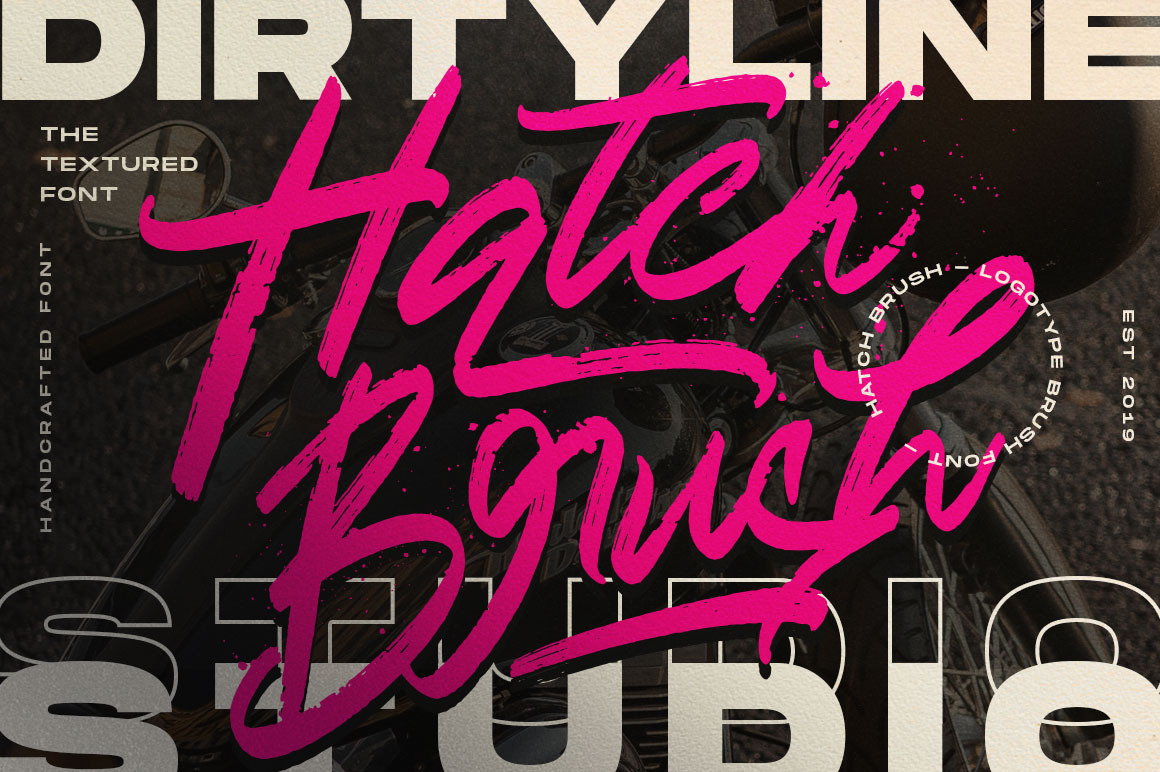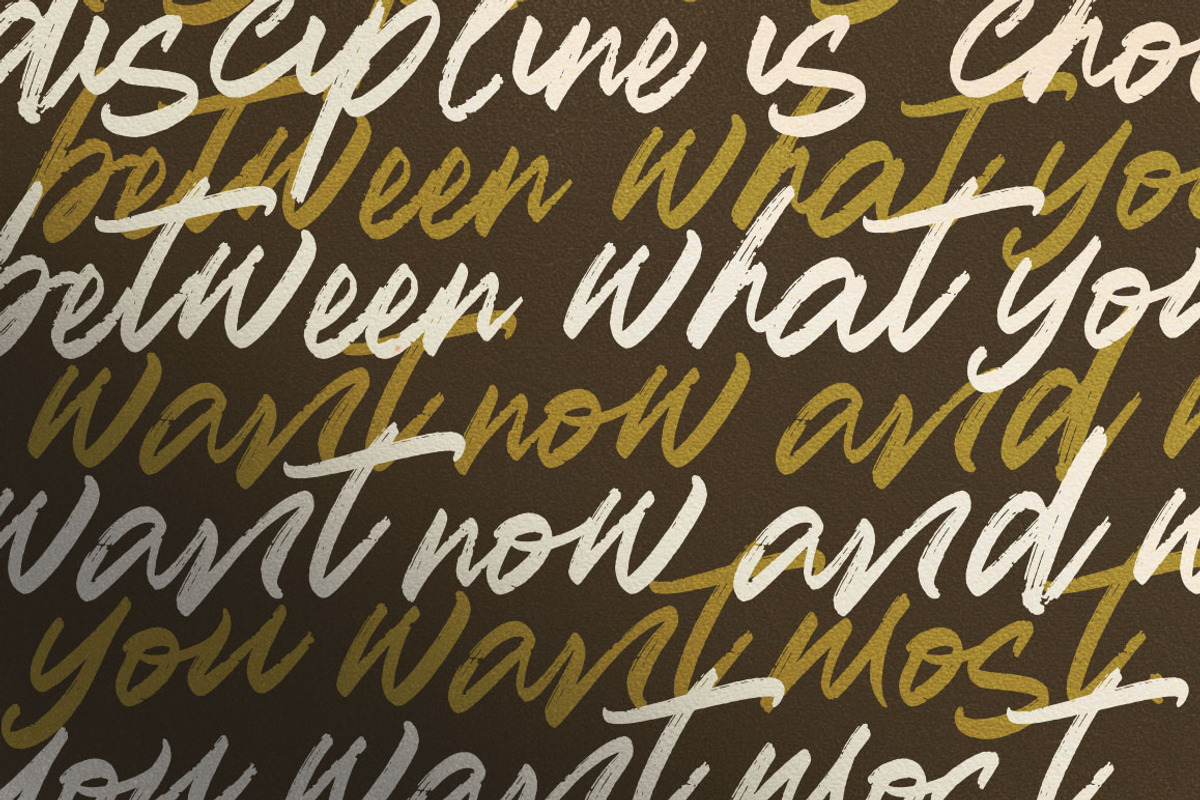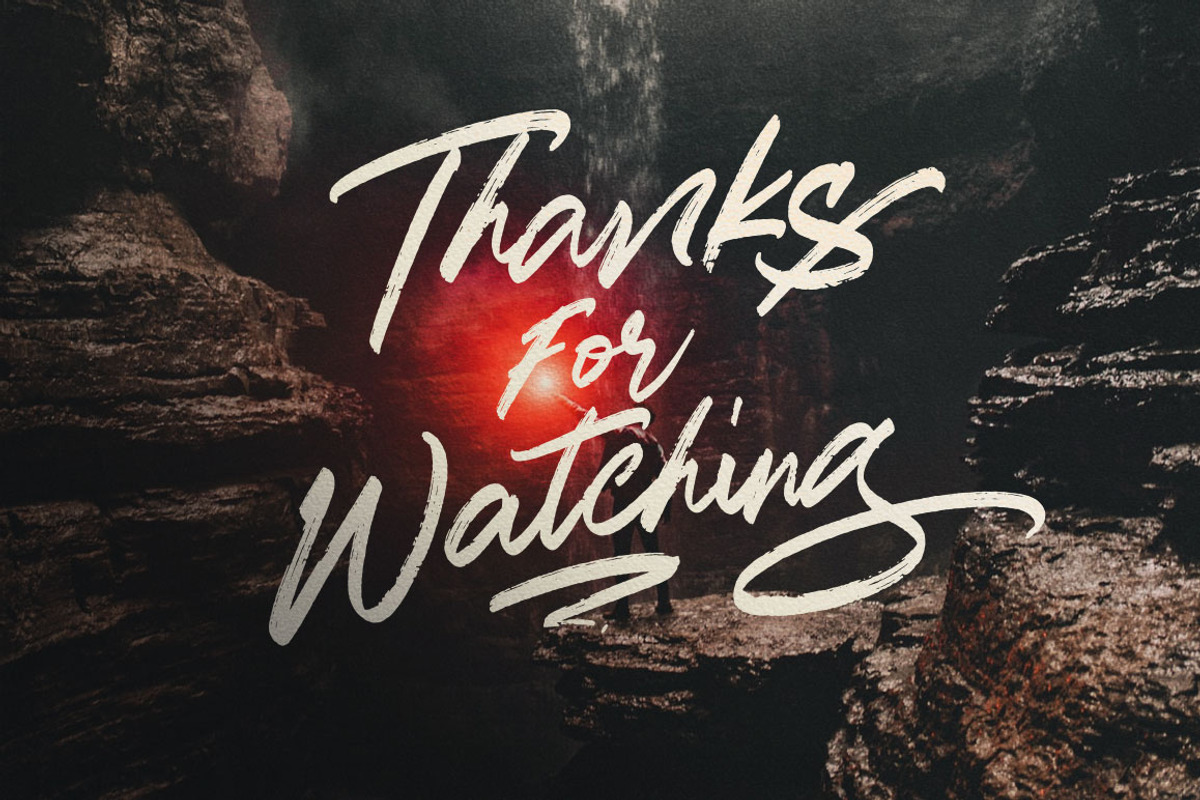
Hatch Typeface
Hatch Brush is Stylist Brush font with a real hand-painted wet brush look. Ideal for signature, logos, handwritten quotes, product packaging, header, poster, merchandise, social media & greeting cards.
- Alternative Character
- Multilangual
- Stylistic Alternate